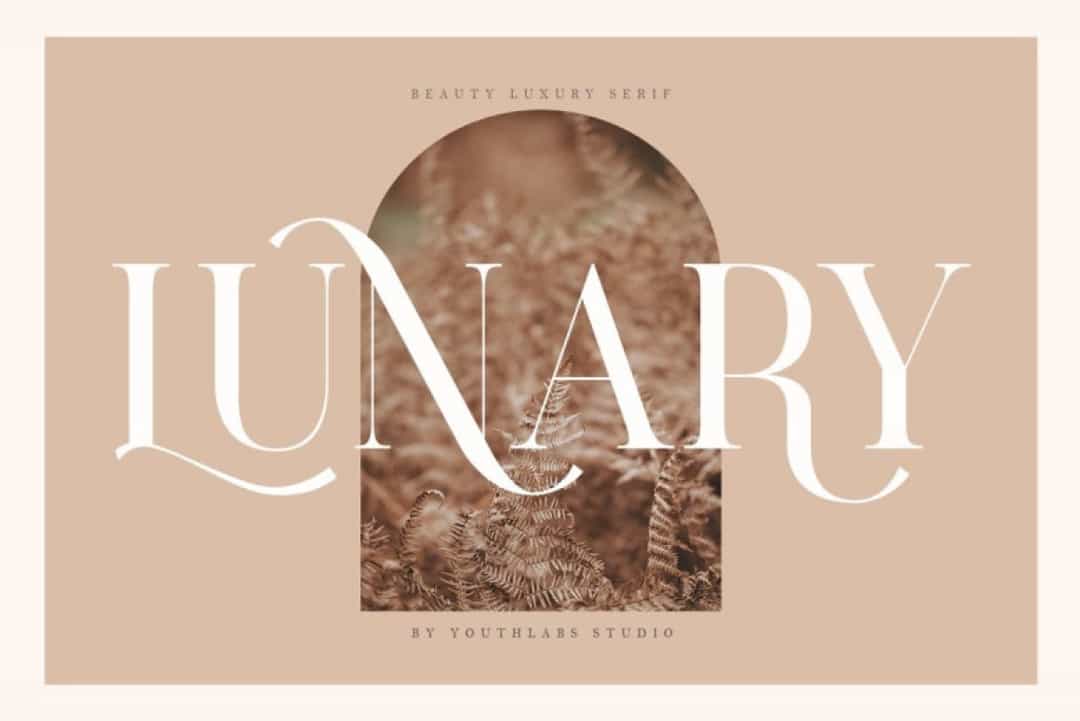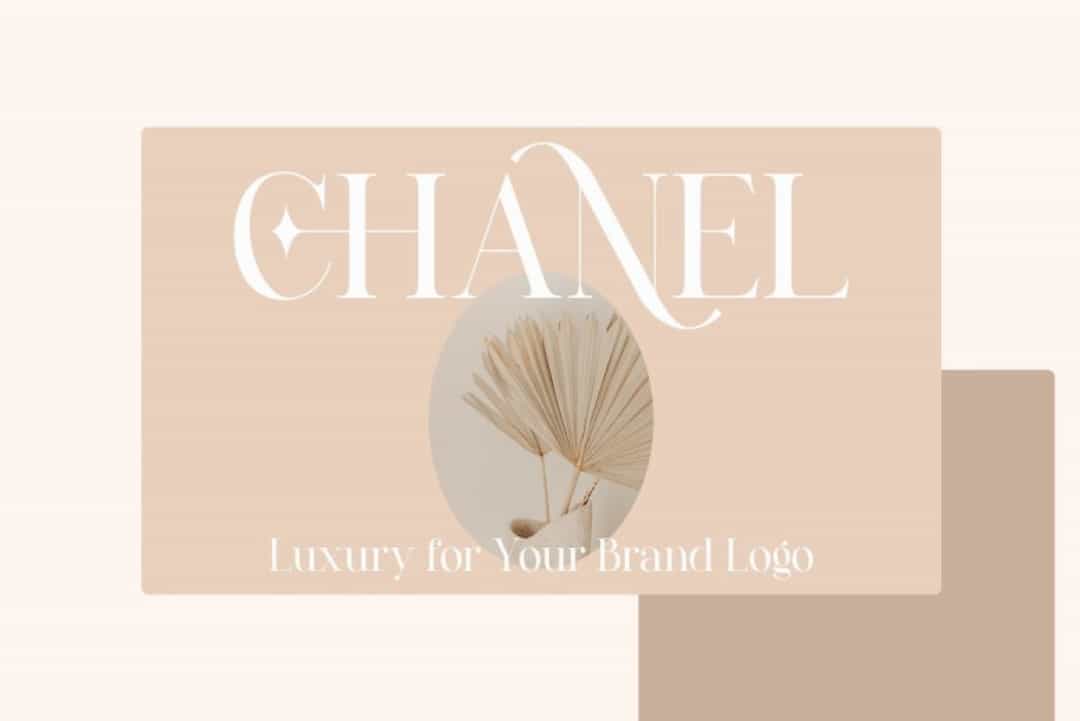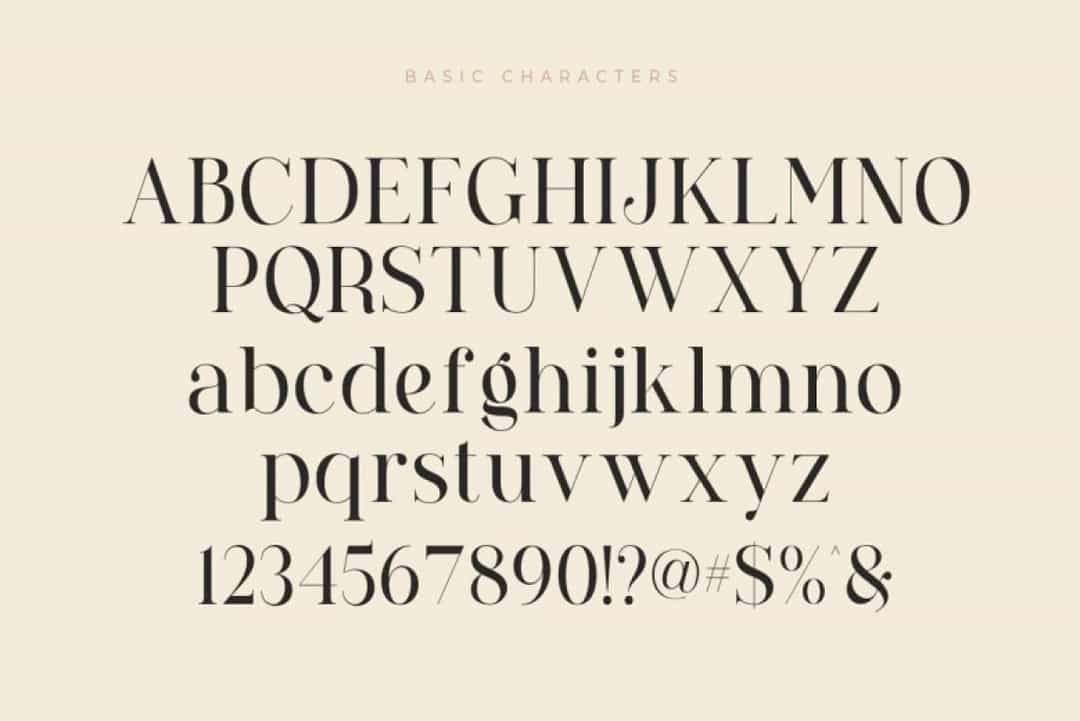
LUNARY is an elegant serif font oozing luxury. Perfect for fashion brand logos, its multiple font options allow designers to easily utilize LUNARY in magazines, logos, typography branding campaigns, fashion advertising and much more.